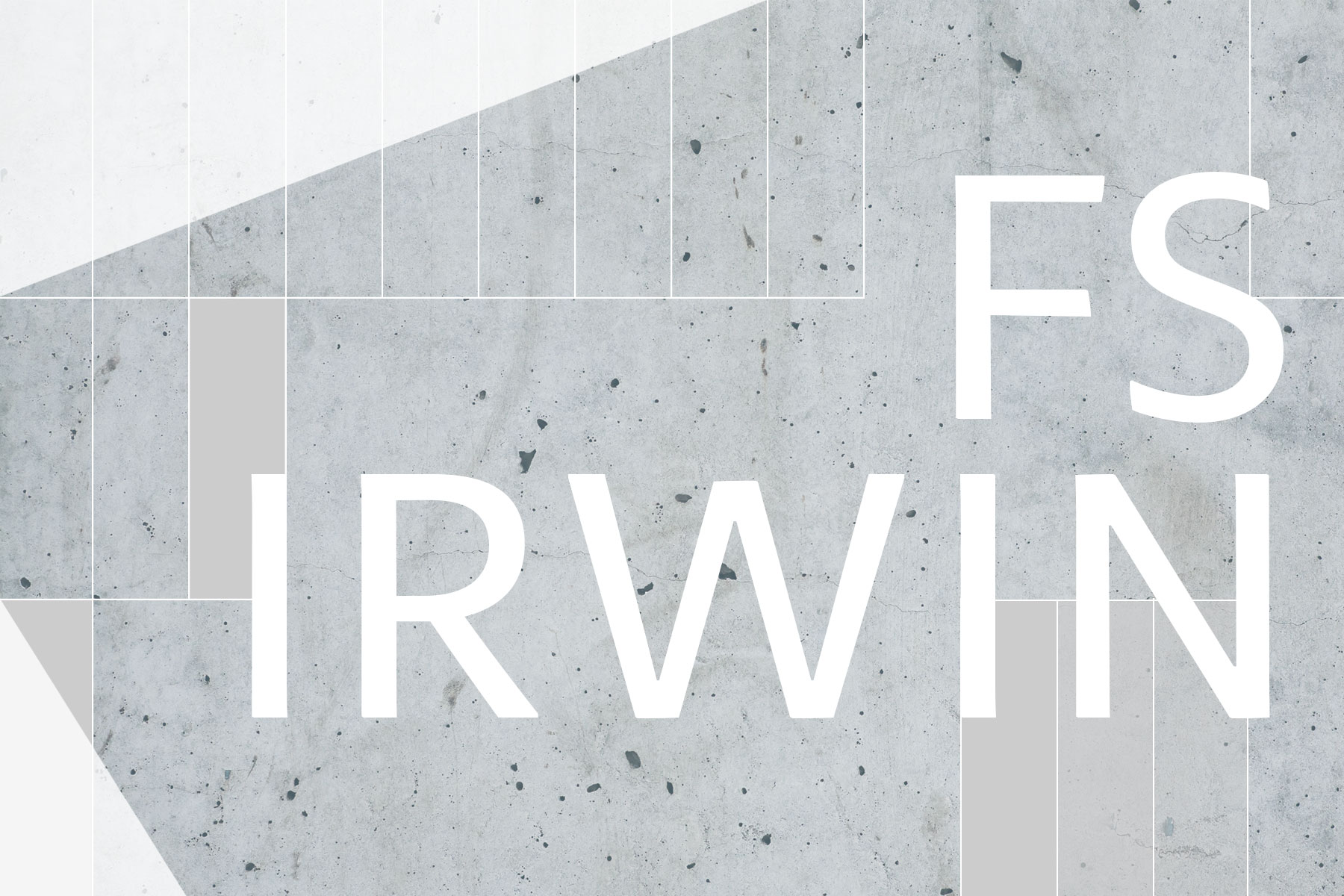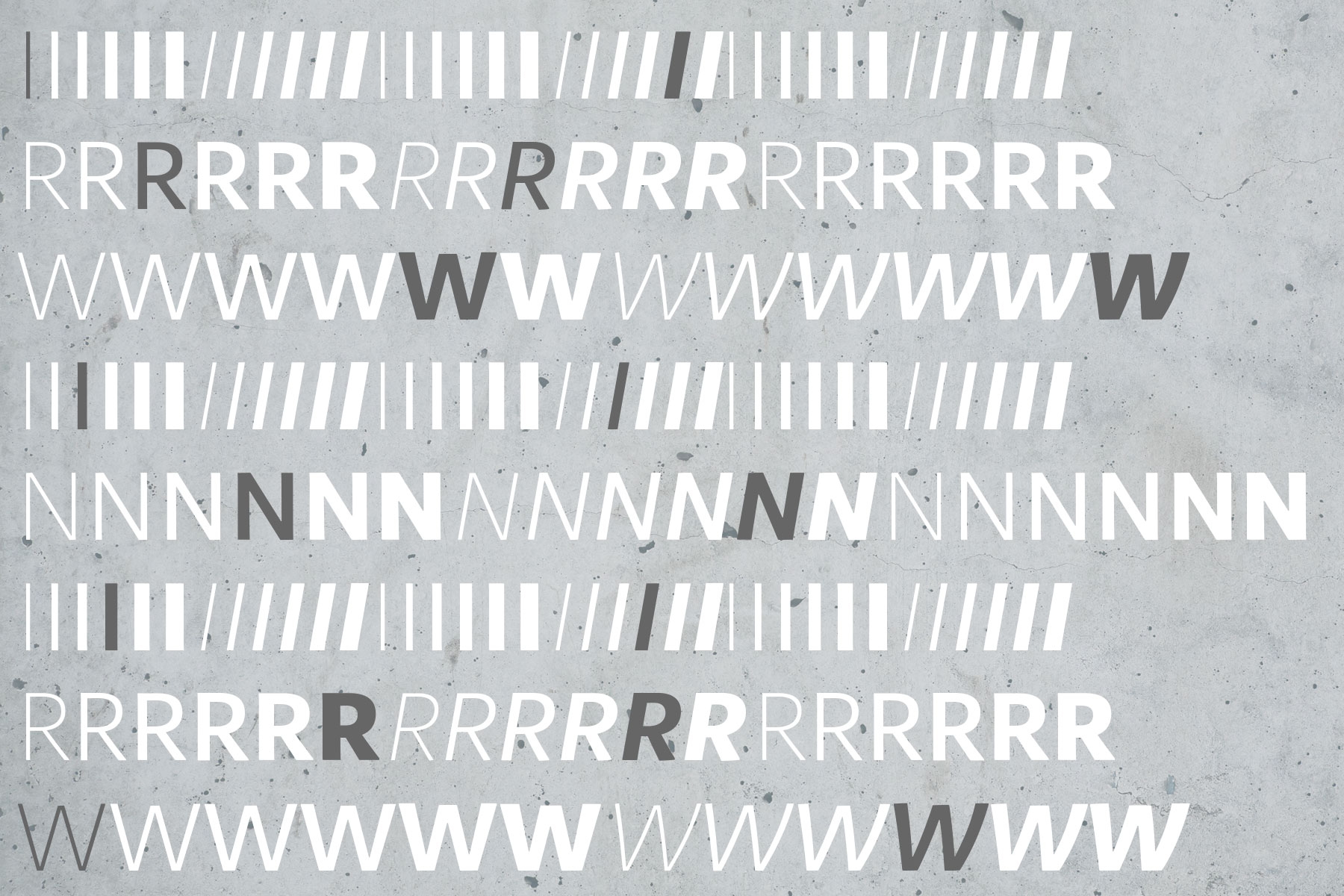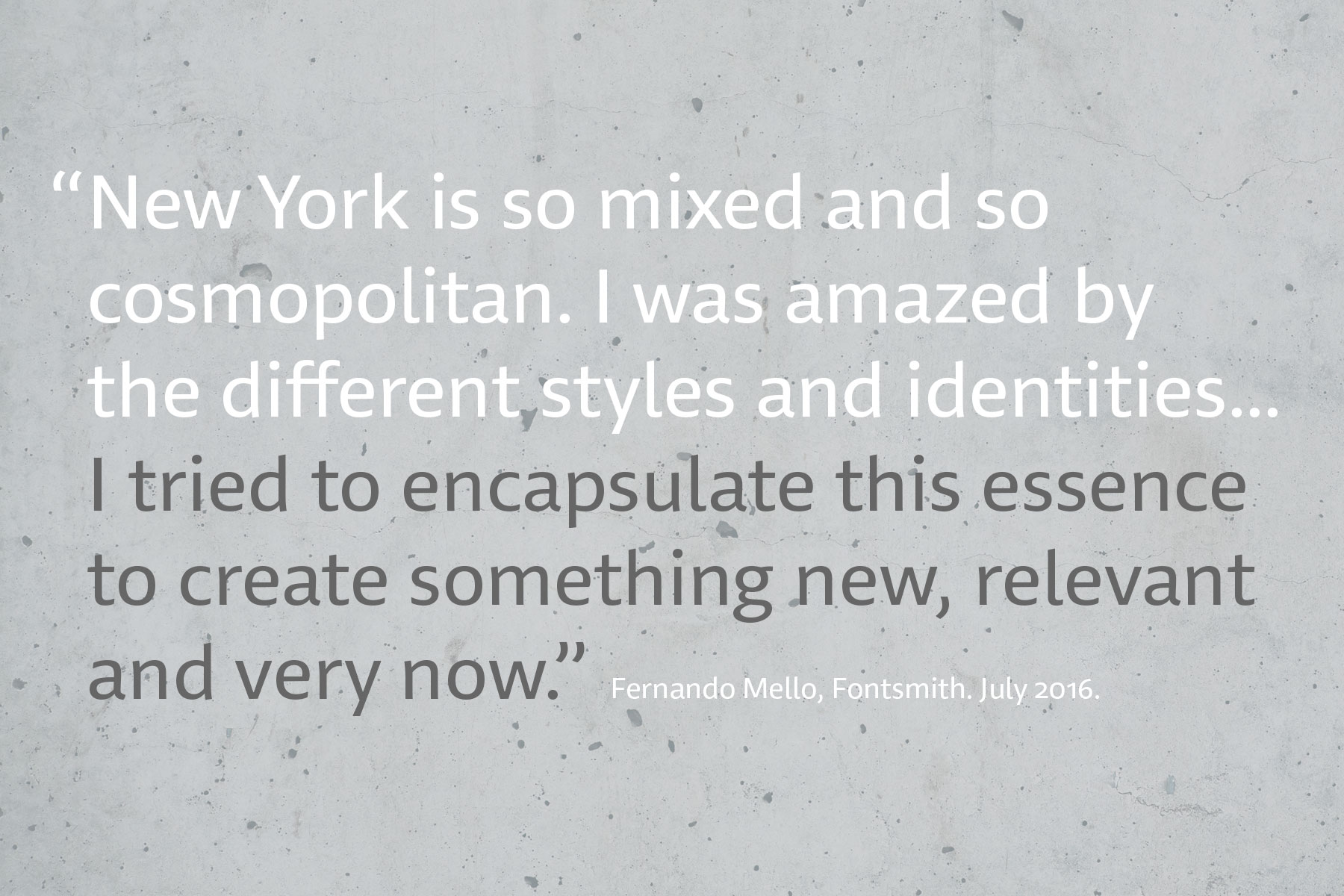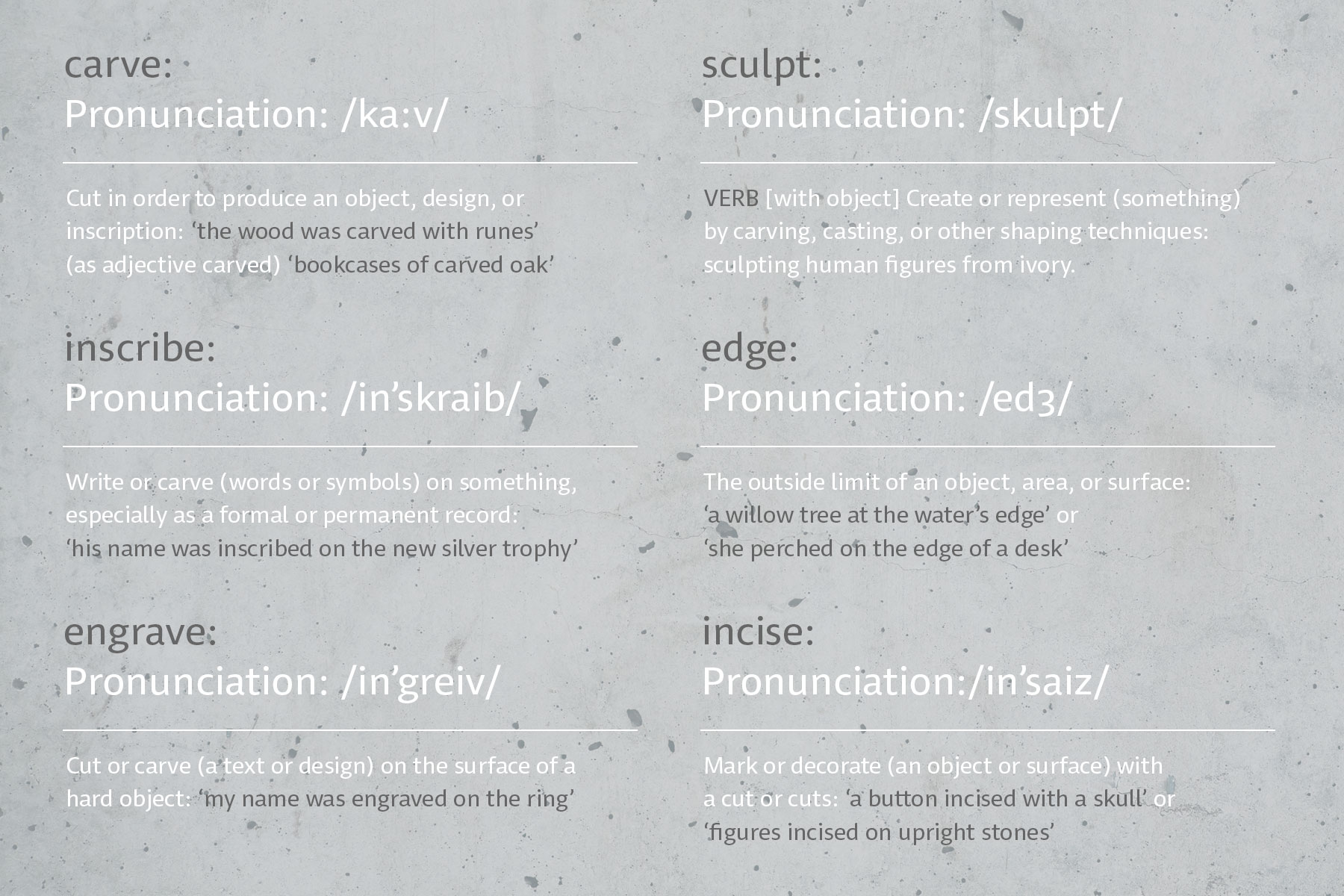
FS Irwin is exudes quality craftsmanship, it is highly legible, and functional. Irwin's success lies in the faces subtlty.
Designed by senior designer Fernando Mello, the font was inspired by New York and his time studying typeface design at the Cooper Union’s five-week Cooper Condensed Program.
The designs originated in Mello’s studies in inscriptional lettering and calligraphic exercises, as he worked on a brief to design a clear, yet unique typeface that could communicate well, while avoiding loud and overtly mannered design features. His explorations were then digitised and adapted into a more workable humanist sans serif structure.
As his design developed, Mello drew influences from the New York subway font. ‘It’s very in-your-face and clear, always in bold,’ he says. ‘It doesn’t shout much but at the same time is very present and unique.
‘The design is completely different but it was this spirit I wanted to capture for FS Irwin. In a similar way to London, New York is so mixed and so cosmopolitan. I was amazed by the different styles and identities I saw there, and tried to encapsulate this essence to create something new, relevant and very now.’
Rather than focusing on quirks or distinctive characteristics, FS Irwin conveys quality design and simplicity. As such, the proportions and subtle details mean it is adaptable across any situation or application, from more playful designs to serious corporate identities thanks to a welcoming, yet sincere tone.
Mello adds: ‘Extensively tested and precisely drawn text-oriented typefaces are what I enjoy designing the most. There is a beauty and a different approach, a different way of making them interesting, sellable and usable rather than adding flicks or unexpected details.’
Fontsmith founder Jason Smith says: ‘I saw a need for a typeface which got back to a singular view and quality of core forms. A lucid design which would stand out for its simple quality rather than unusual characteristics. Fernando started the design in New York back in 2014 and we’ve been perfecting it over the last couple of years. I think that is evident in the quality of the finished product – it will stand the test of time.